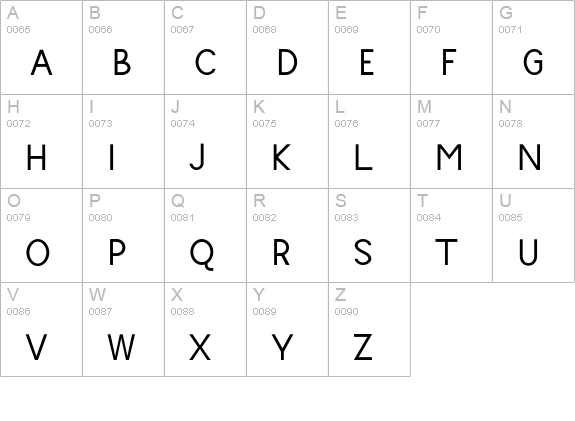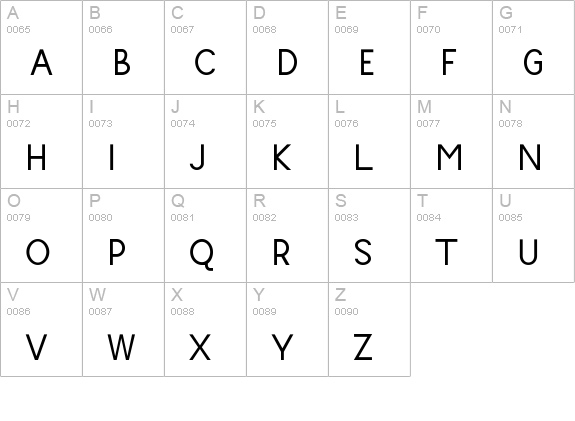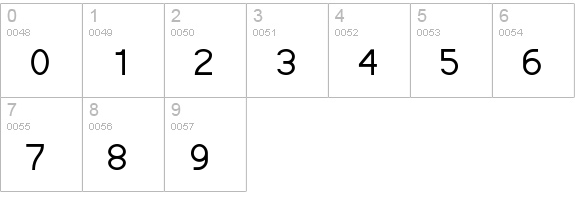
MidnightDemo-Regular Font Details
MidnightDemo-Regular is the standard, neutral variant in the MidnightDemo typeface family \xE2\x80\x94 well suited to general body text, paragraphs, and standard typographic work.
MidnightDemo-Regular font is a stylish and versatile typeface that exudes a mysterious and elegant charm. With its clean lines and modern aesthetic, this font is perfect for a wide range of design projects, from branding to editorial design. What sets MidnightDemo-Regular apart is its unique blend of sophistication and edginess, making it a standout choice for creating impactful visuals. Whether you're working on a poster, website, or logo design, this font will help you make a bold statement. Best of all, MidnightDemo-Regular is available for free download at FontsMarket.com. So go ahead and elevate your designs with this striking font today!